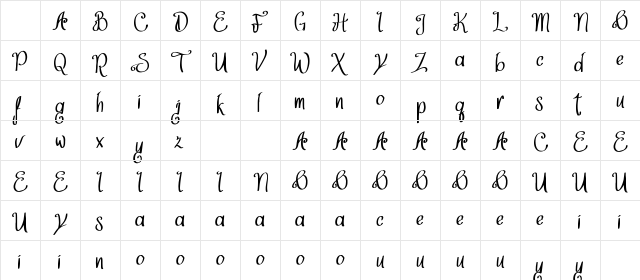
Think Dreams Demo is a composed and adaptable typeface that performs quietly and consistently across a wide range of design contexts. Its slender proportions lend an understated elegance to any composition.